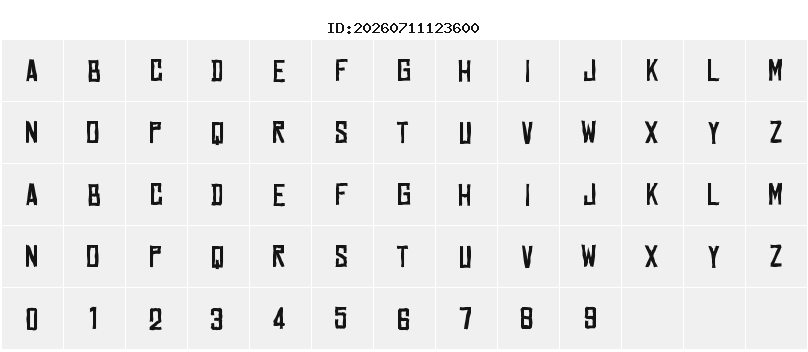
• Font Name: Marston
• Full Font Name: Marston
• Version: Version 1.00 April 13, 2013, initial release
• Designer: Neale Davidson
About Marston.ttf
Marston.ttf is a modern, elegant sans-serif font designed for ultimate readability and visual harmony. Perfect for branding, headlines, web design, and print materials.